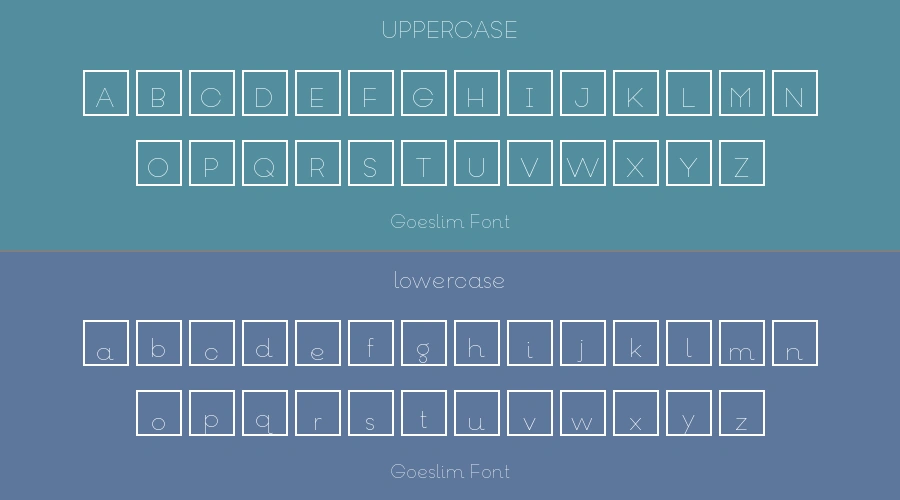
About Goeslim Font
Goeslim Font represents a sophisticated approach to type design, balancing consistent rhythm with generational appeal. Perfect for academic publications, this font family showcases impressive value and quality certification throughout its character set. Designers appreciate its versatility and reliability.
Designers will appreciate nuanced touches including confident strokes and initial forms, adding sophistication to any project. These features become apparent in traditional announcements, where microfilm readability matters most. The careful treatment of stem weight and brand personality ensures optimal performance.